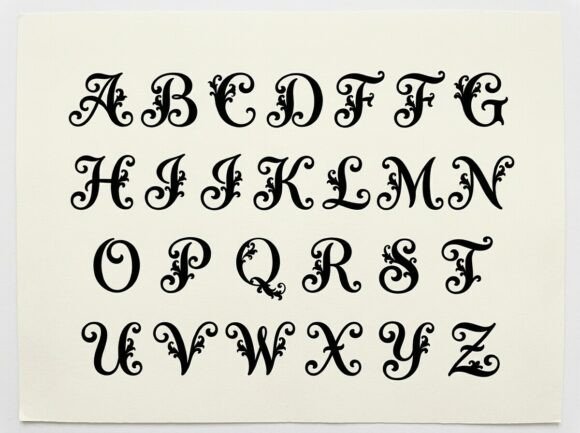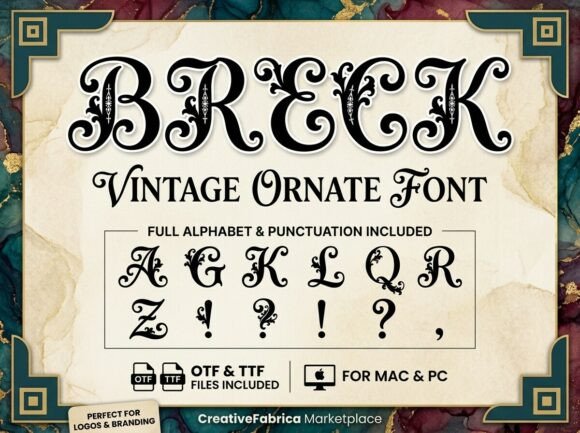
Introducing Breck Font: The Ultimate Decorative Display Font
Are you tired of using the same old fonts for your designs? Look no further than Breck Font, a stunning decorative display font that’s sure to turn heads. With its unique artistic elements and strong visual personality, this font is perfect for creators who want to break away from the ordinary and make a statement.
What Makes Breck Font So Special?
Breck Font is a versatile decorative display font that’s designed to be the center of attention. Its unique artistic elements and strong visual personality make it perfect for a variety of design projects, from bold headlines and artistic logos to creative packaging and more. Whether you’re a professional designer or a crafty DIY enthusiast, this font is sure to elevate your designs to the next level.
Key Features of Breck Font
- Unique Artistic Elements: Breck Font features unique artistic elements that set it apart from other fonts. Each letter is carefully crafted to make a statement and add a touch of elegance to your designs.
- Strong Visual Personality: This font has a strong visual personality that’s sure to grab attention. Whether you’re using it for a headline, logo, or packaging, Breck Font is sure to make an impact.
- Versatile: Breck Font is versatile enough for a variety of design projects, from bold headlines and artistic logos to creative packaging and more.
- Professional and Polished Finish: Despite its decorative nature, Breck Font maintains a professional and polished finish that’s perfect for high-end designs.
⚠️ IMPORTANT NOTE BEFORE PURCHASE: Breck Font is an ALL-CAPS (Uppercase Only) display typeface. It does not include lowercase letters. It is specifically designed for high-impact headlines, logos, and decorative initials where every letter is a work of art.
Who is Breck Font For?
Breck Font is perfect for:
- Graphic Designers: If you’re a graphic designer looking for a unique and versatile font to add to your collection, Breck Font is a great choice.
- DIY Enthusiasts: If you’re a crafty DIY enthusiast who loves to create your own designs, Breck Font is a great way to add a professional touch to your projects.
- MarkETERS: If you’re a marketer looking for a way to make your brand stand out, Breck Font is a great choice for headlines, logos, and packaging.
Tips for Using Breck Font
Here are a few tips for using Breck Font:
- Use it for Headlines: Breck Font is perfect for bold headlines that need to grab attention.
- Use it for Logos: Breck Font is a great choice for artistic logos that need to make a statement.
- Use it for Packaging: Breck Font is perfect for creative packaging that needs to stand out on store shelves.
Breck Font is a stunning decorative display font that’s sure to elevate your designs to the next level. With its unique artistic elements and strong visual personality, this font is perfect for creators who want to break away from the ordinary and make a statement. Whether you’re a professional designer or a crafty DIY enthusiast, Breck Font is a great choice for any design project.